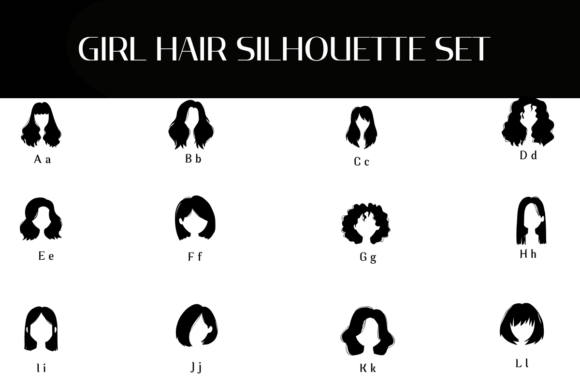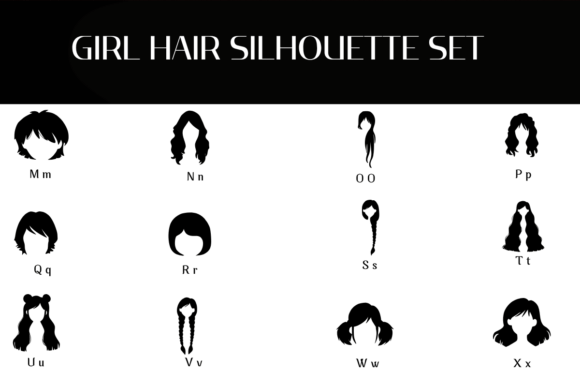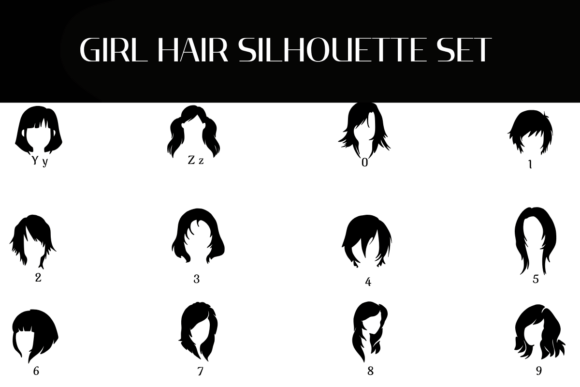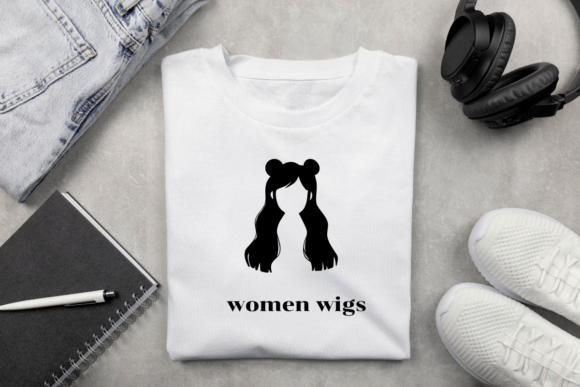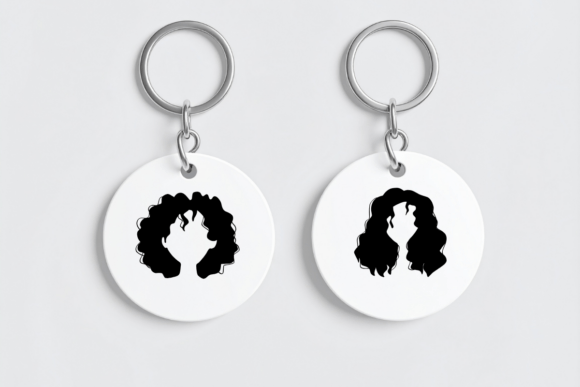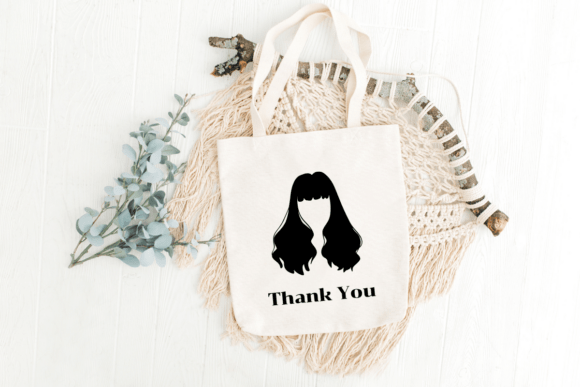
Unlock Endless Design Possibilities with the Girl Hair Silhouette Set Font
In the world of design, fonts and graphics play a pivotal role in conveying a brand’s personality and aesthetic. For fashion and beauty brands, finding the right visual elements that resonate with their target audience can be a game-changer. This is where the Girl Hair Silhouette Set Font comes into play, offering a versatile and creative solution for designers and crafters alike.
What is the Girl Hair Silhouette Set Font?
The Girl Hair Silhouette Set Font is a unique dingbats font designed specifically for creative fashion and beauty storytelling. This comprehensive collection boasts a vast gallery of professionally illustrated hairstyles, catering to a wide range of tastes and preferences. From classic long waves and playful pigtails to chic bobs and intricate curly textures, this font set has something for everyone.
Key Features of the Girl Hair Silhouette Set Font
- Vast Collection of Hairstyles: With a diverse range of hairstyles, designers can choose the perfect silhouette to match their brand’s style and message.
- Modern, Faceless Aesthetic: Each silhouette is designed with a modern, faceless approach, making it perfect for salon branding, beauty blog headers, fashion lookbooks, and personalized avatar creation.
- Professional Versatility: The Girl Hair Silhouette Set Font delivers a sense of contemporary style and professional versatility to your designs, ensuring your visual identity carries a unique and memorable character.
Applications of the Girl Hair Silhouette Set Font
The Girl Hair Silhouette Set Font is incredibly versatile and can be used in various design projects, including:
- Salon Branding: Create a lasting impression with custom logos, business cards, and brochures that showcase your salon’s style and personality.
- Beauty Blog Headers: Elevate your blog’s visual appeal with stunning headers that reflect your brand’s tone and aesthetic.
- Fashion Lookbooks: Showcase your fashion collection with style and sophistication, using the Girl Hair Silhouette Set Font to add a touch of elegance.
- Personalized Avatar Creation: Offer your customers a unique and personalized experience with custom avatars that reflect their individuality.
Benefits of Using the Girl Hair Silhouette Set Font
By incorporating the Girl Hair Silhouette Set Font into your design projects, you can:
- Enhance Brand Identity: Create a consistent visual identity that resonates with your target audience and sets your brand apart from the competition.
- Streamline Design Process: With a vast collection of hairstyles at your fingertips, you can quickly find the perfect silhouette to match your design vision.
- Increase Engagement: Use the Girl Hair Silhouette Set Font to create visually appealing designs that capture your audience’s attention and encourage interaction.
To get the most out of the Girl Hair Silhouette Set Font, consider the following tips:
- Experiment with Different Hairstyles: Don’t be afraid to try out different silhouettes to find the perfect match for your design project.
- Mix and Match: Combine the Girl Hair Silhouette Set Font with other design elements to create a unique and captivating visual identity.
- Keep it Consistent: Use the Girl Hair Silhouette Set Font consistently across your design projects to establish a strong brand identity.
The Girl Hair Silhouette Set Font is a powerful tool for designers and crafters looking to elevate their fashion and beauty designs. With its vast collection of professionally illustrated hairstyles, modern faceless aesthetic, and professional versatility, this font set is sure to become a staple in your design toolkit. Unlock endless design possibilities and define your brand’s personality with the Girl Hair Silhouette Set Font.